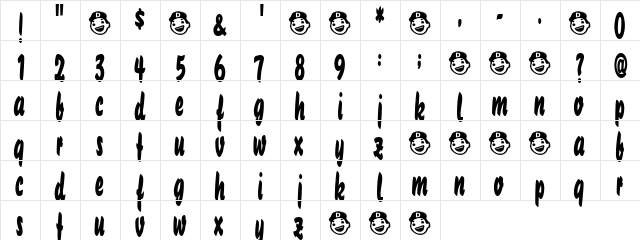
ThousandLies Regular
Design Context for ThousandLies Typeface
ThousandLies is a composed and adaptable typeface that performs quietly and consistently across a wide range of design contexts.